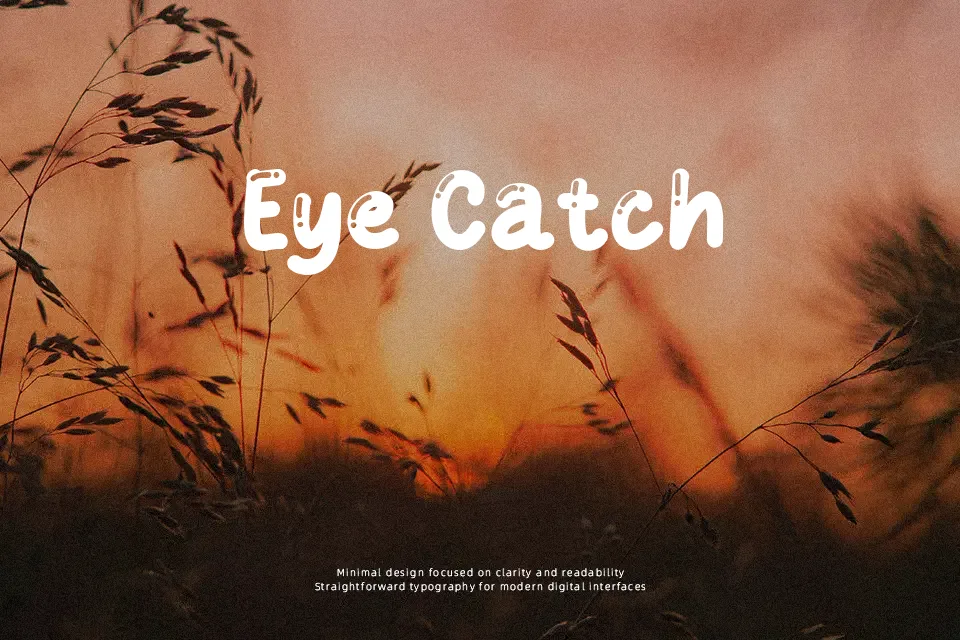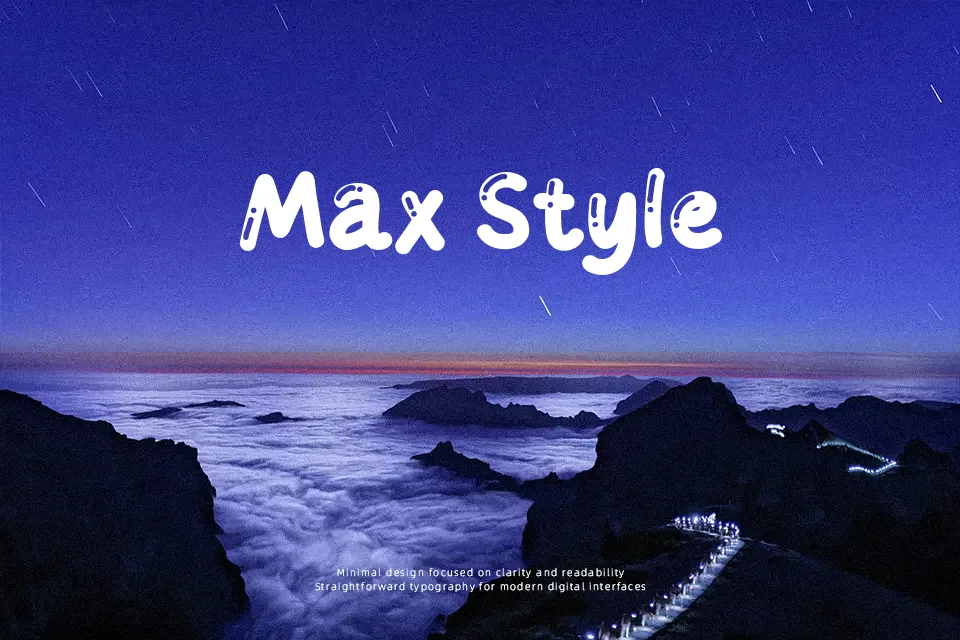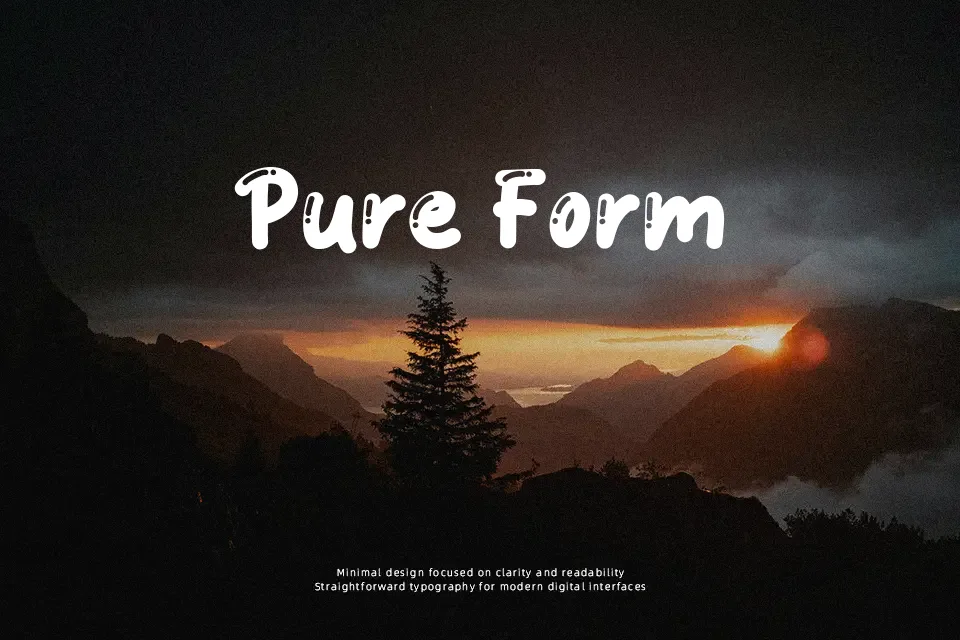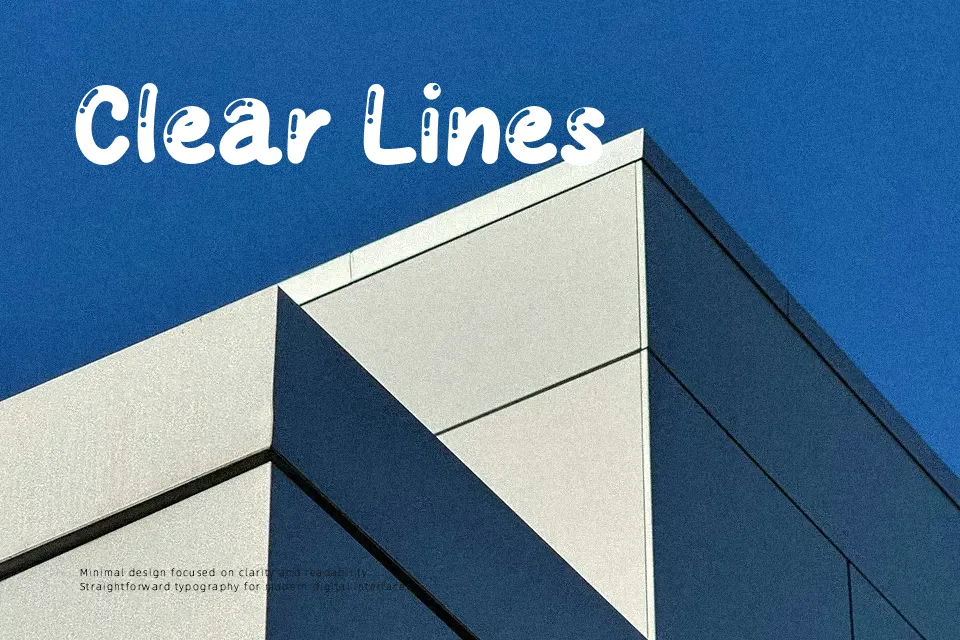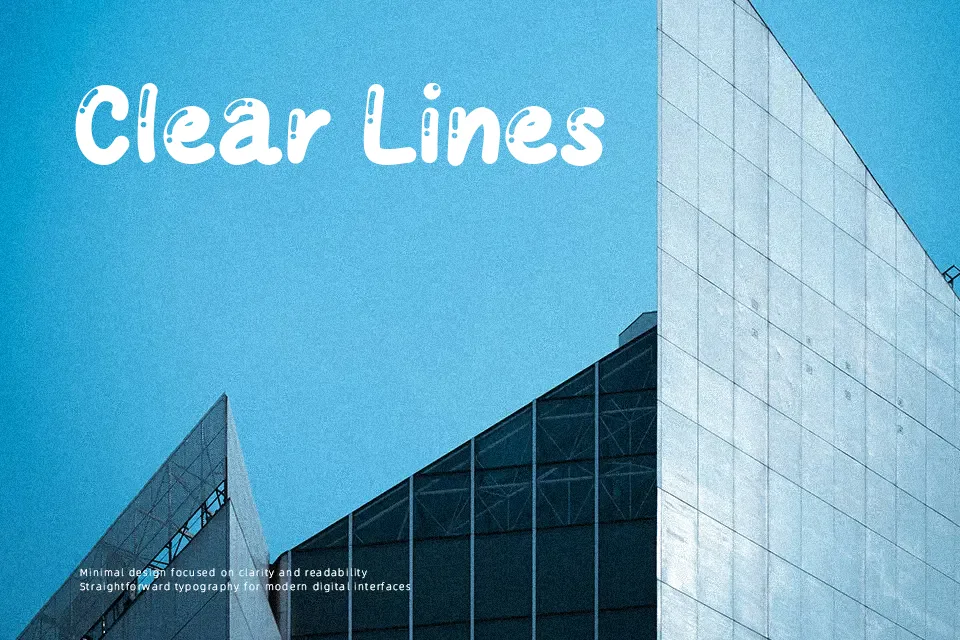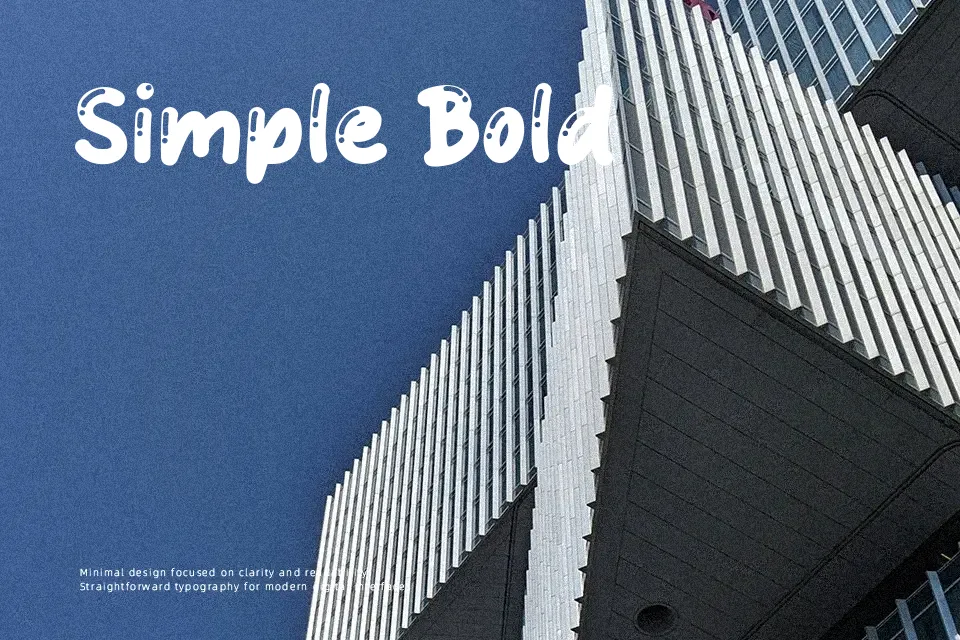
Bouncy Gum Font
Designed by MJType
Bouncy Gum uses thick, rounded strokes with loose, uneven baselines that make every word feel like it’s jumping off the page. The letters sit fairly wide with open counters, so short phrases and titles stay readable even in busy layouts. It leans heavily into a cartoon style, with a cheerful, informal tone that works well for children’s event posters, toy packaging mockups, YouTube thumbnails, or playful branding that doesn’t take itself too seriously. On the other hand, the exaggerated curves and informal rhythm can feel out of place in formal layouts, long paragraphs, or anything that needs a polished, corporate voice.
kids’ birthday posters and flyers
playful logo or wordmark lockups
social media banners for children’s content
party invitations and printable decor
body copy or long reading text
formal corporate or editorial layouts
minimal, highly restrained branding
interfaces that require small-size legibility